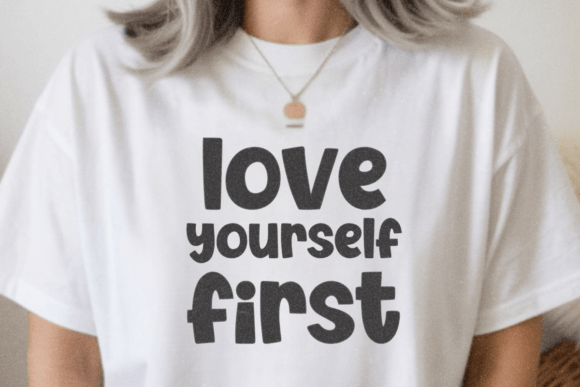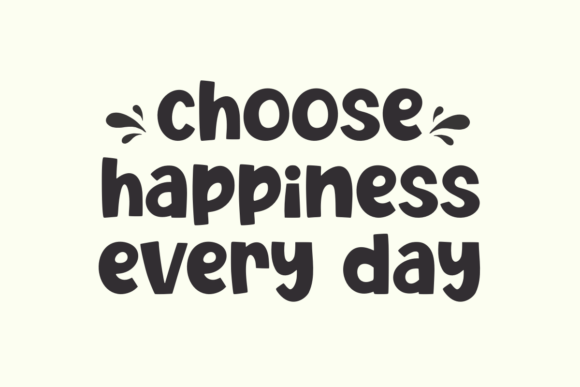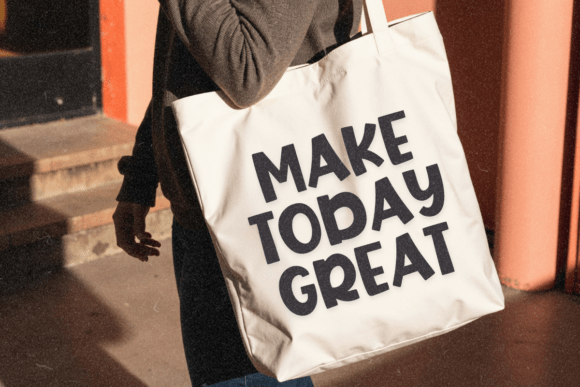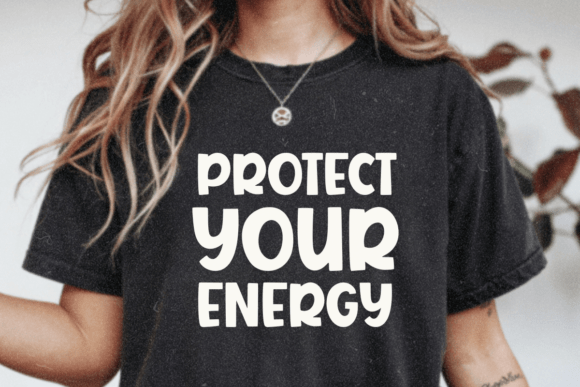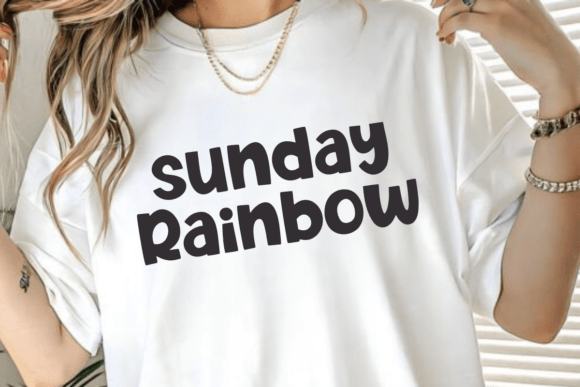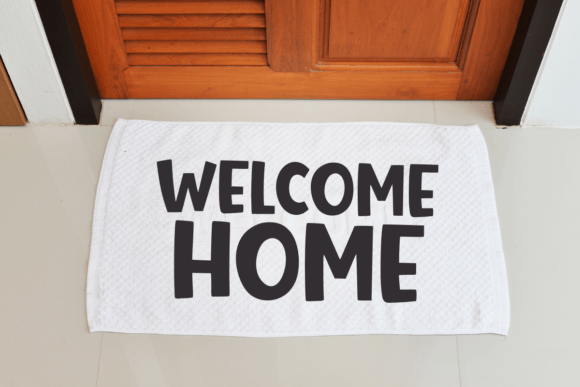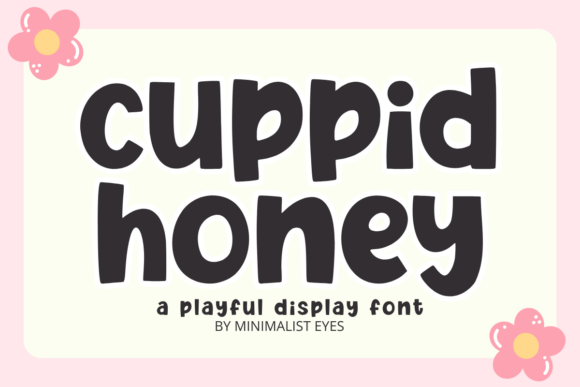
Bring a Touch of Joy and Sweetness to Your Designs with Cuppid Honey Font
Are you looking for a font that can add a playful and charming touch to your designs? Look no further than Cuppid Honey, a delightful display font that’s perfect for creating eye-catching and adorable projects. With its bold, rounded strokes and friendly personality, Cuppid Honey is sure to capture attention and bring a smile to your audience’s faces.
A Hand-Lettered Feel for a Personal Touch
Cuppid Honey is designed with a hand-lettered feel that gives it a unique and personal touch. The font features thick, soft edges that make it incredibly readable and versatile for both digital and print media. Whether you’re creating social media posts, children’s book covers, greeting cards, or merchandise, Cuppid Honey delivers a charming and modern look that’s sure to impress.
Cuppid Honey is a versatile font that can be used for a wide range of projects. Here are some ideas to get you started:
- Social Media Posts: Create eye-catching social media posts that grab attention and drive engagement. Use Cuppid Honey to add a playful touch to your Facebook, Instagram, Twitter, and Pinterest posts.
- Children’s Book Covers: Design adorable children’s book covers that will delight kids and parents alike. Cuppid Honey’s friendly and approachable vibe makes it perfect for kids’ books, educational materials, and activity sheets.
- Personalized Greeting Cards: Create personalized greeting cards for special occasions like birthdays, weddings, and holidays. Cuppid Honey’s charming and modern look makes it perfect for adding a personal touch to your cards.
- Trendy Merchandise: Design trendy merchandise like t-shirts, mugs, and tote bags that will appeal to a wide range of audiences. Cuppid Honey’s bold and playful style makes it perfect for creating fun and eye-catching merchandise.
Why Choose Cuppid Honey?
Here are just a few reasons why Cuppid Honey is the perfect font for your next project:
- Unique and Playful Style: Cuppid Honey features a unique and playful style that’s sure to capture attention and bring a smile to your audience’s faces.
- Hand-Lettered Feel: The font’s hand-lettered feel gives it a personal and authentic touch that’s perfect for creating unique and engaging projects.
- Versatile and Readable: Cuppid Honey’s thick, soft edges make it incredibly readable and versatile for both digital and print media.
- Modern and Charming: The font’s modern and charming look makes it perfect for creating projects that need a fun and approachable vibe.
Tips for Using Cuppid Honey
Here are some tips for getting the most out of Cuppid Honey:
- Experiment with Colors: Cuppid Honey looks great in a variety of colors, so don’t be afraid to experiment and find the perfect hue for your project.
- Pair with Other Fonts: Try pairing Cuppid Honey with other fonts to create a unique and eye-catching look.
- Use for Headlines and Titles: Cuppid Honey is perfect for headlines and titles, so use it to add a playful touch to your project’s text.
Cuppid Honey is a delightful display font that’s perfect for adding a touch of joy and sweetness to your designs. With its bold, rounded strokes and friendly personality, it’s sure to capture attention and bring a smile to your audience’s faces. Whether you’re creating social media posts, children’s book covers, greeting cards, or merchandise, Cuppid Honey delivers a charming and modern look that’s sure to impress. So why wait? Try Cuppid Honey today and bring a touch of joy and sweetness to your designs!